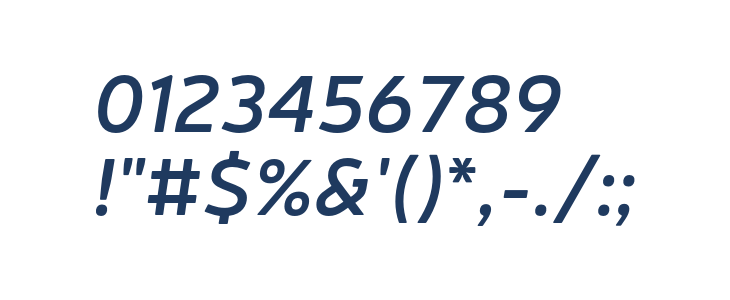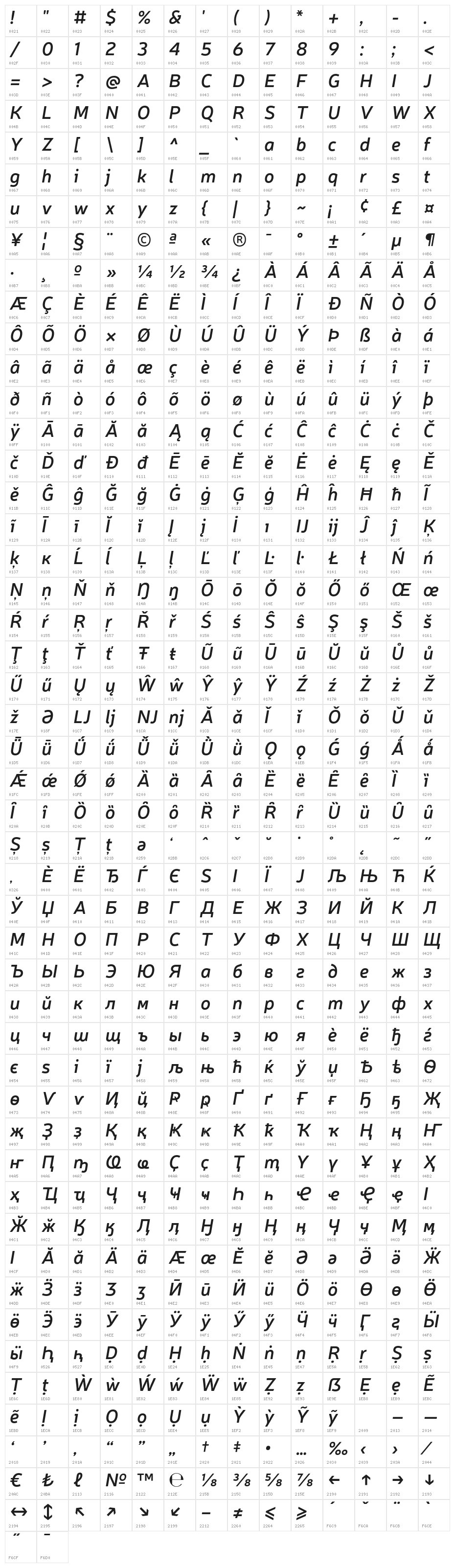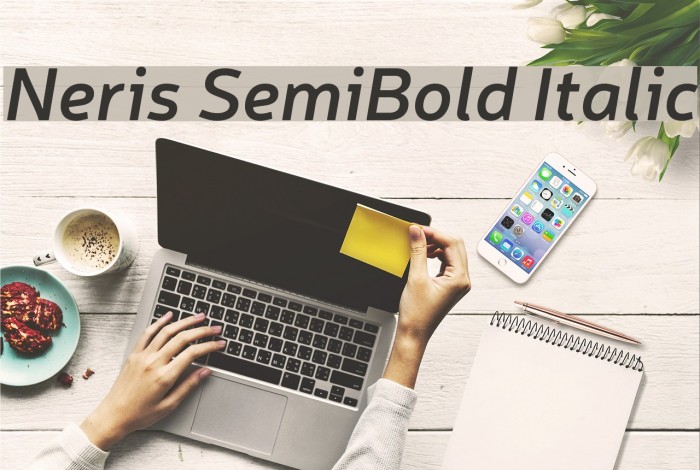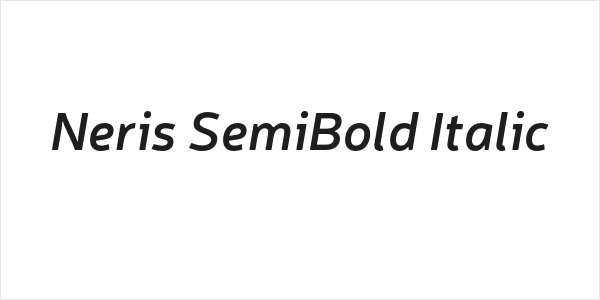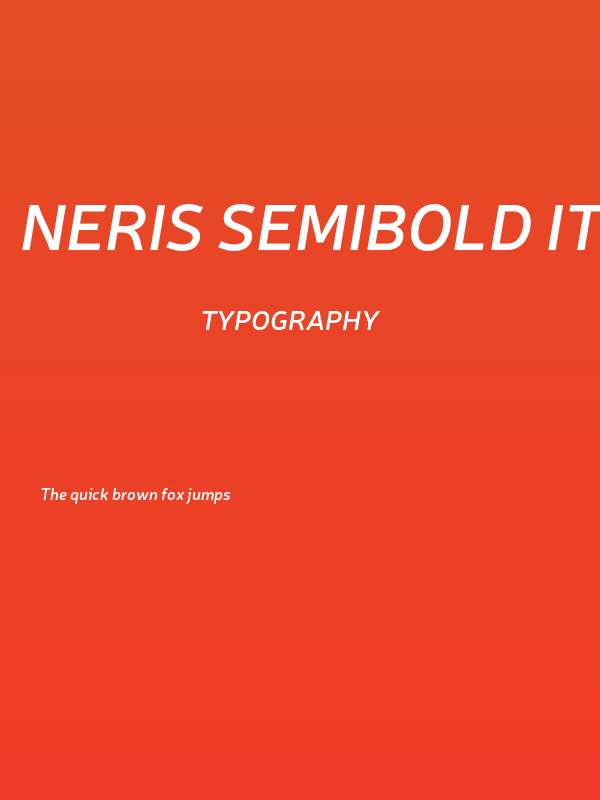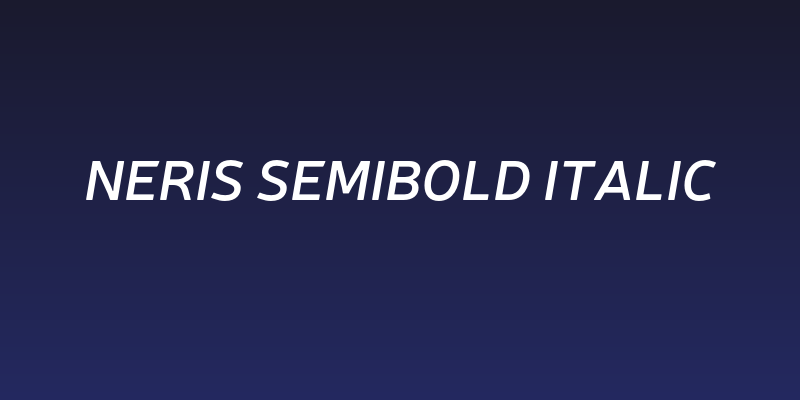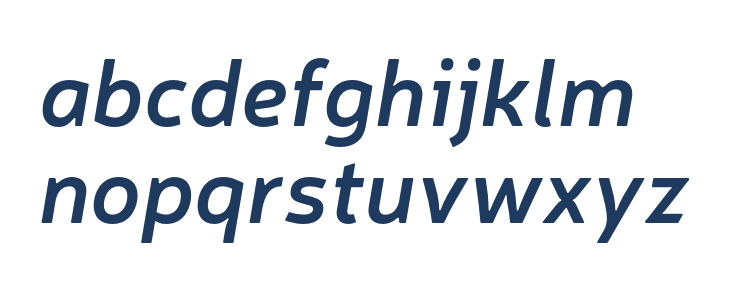
Neris SemiBold Italic Font
Neris SemiBold Italic Description
This font features a sleek and modern design with a slight italic slant, giving it a dynamic and forward-moving appearance. The characters are well-proportioned, with a consistent stroke width that maintains readability across different sizes. The uppercase letters are bold and commanding, while the lowercase letters maintain a friendly and approachable feel. The numerals are clear and distinct, making them suitable for both text and numerical data. Special characters are well-integrated, ensuring versatility in various contexts. Overall, this font balances professionalism with a touch of elegance, making it suitable for a wide range of applications.